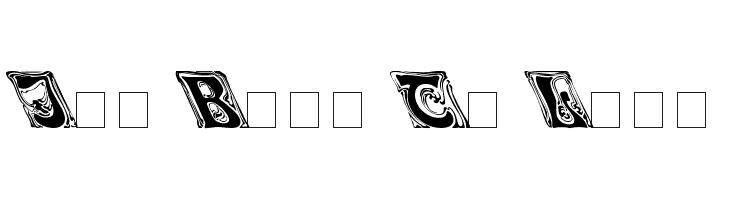
A bold, distressed font with a vintage, handcrafted appearance.
A bold, dynamic serif font with medium contrast and a playful slant.
A bold, dynamic font with a slight slant and moderate stroke contrast.
A high-contrast serif font with elegant, sharp serifs and a modern flair.
A bold, distressed font with a rugged, urban aesthetic.
A playful, bold serif font with a comic-like, hand-drawn style.
A playful, hand-drawn font with bold, irregular strokes and a casual style.
A bold, distressed font with a rebellious, hand-crafted look.